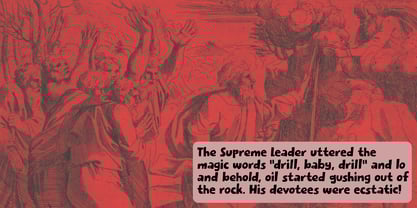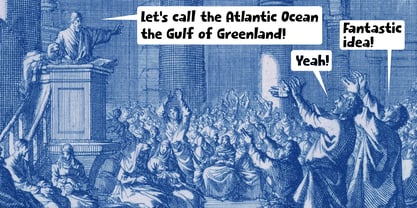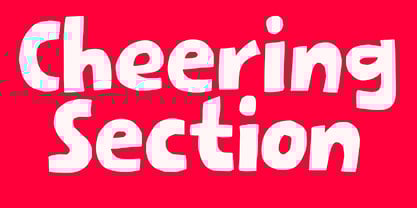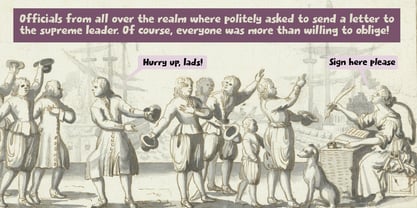
Cheering Section
by Kitchen Table Type Foundry
The Cheering Section Font Family was designed by David Kerkhoff and published by Kitchen Table Type Foundry. Cheering Section contains 2 styles and family package options.
Cheering Section is a really nice, handmade ‘comic style’ font. Use it for your book covers, product packaging and posters. Comes with a full set of contextual alternates that cycles as you type.